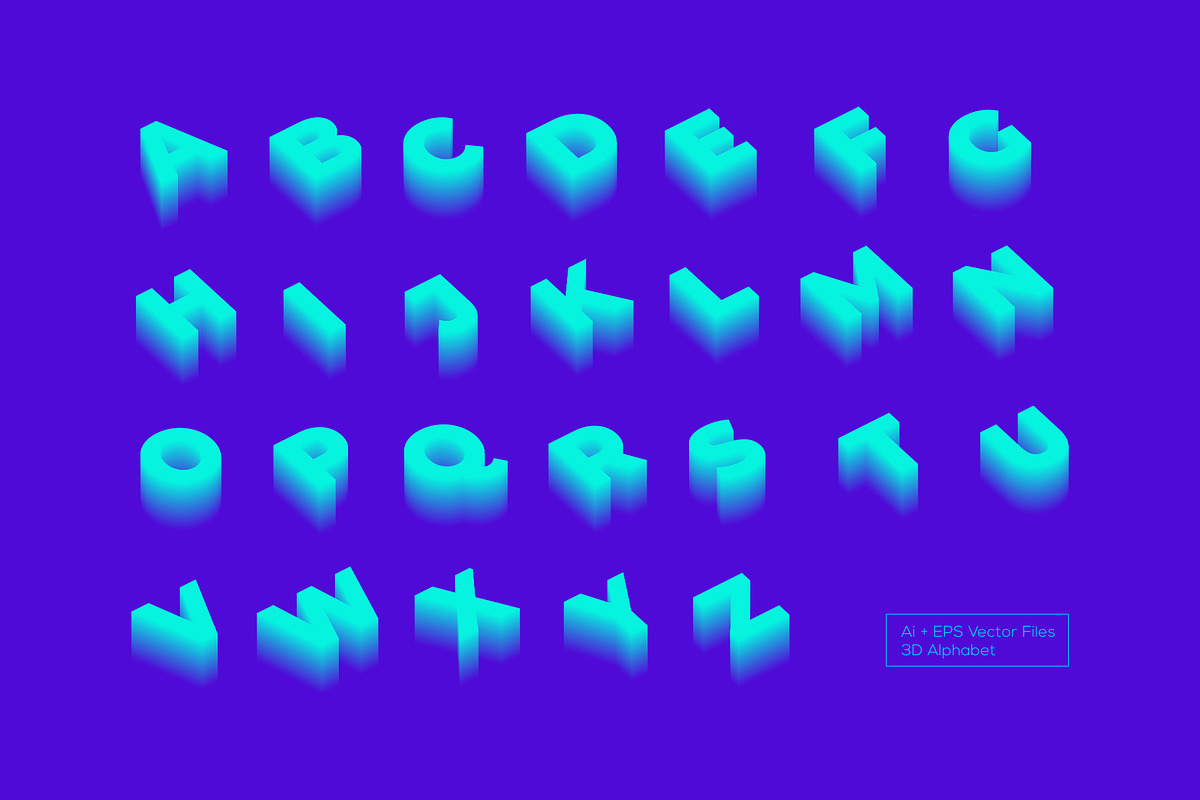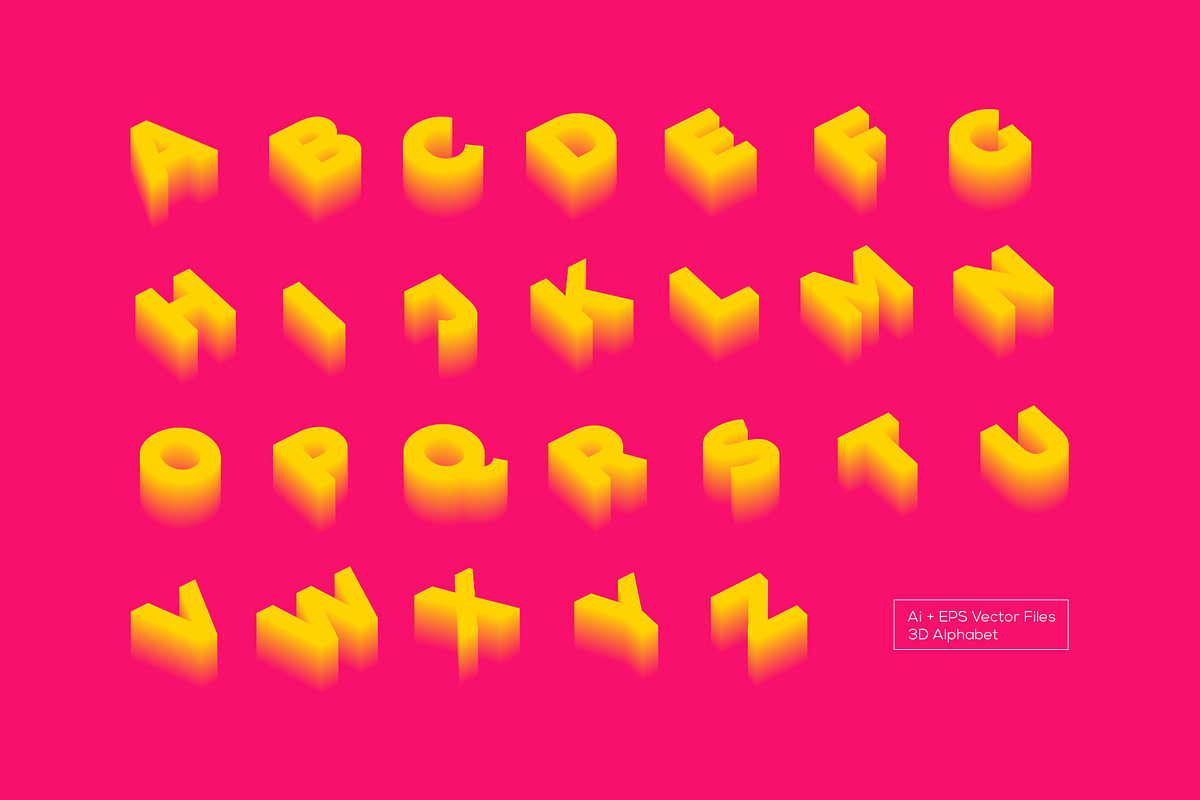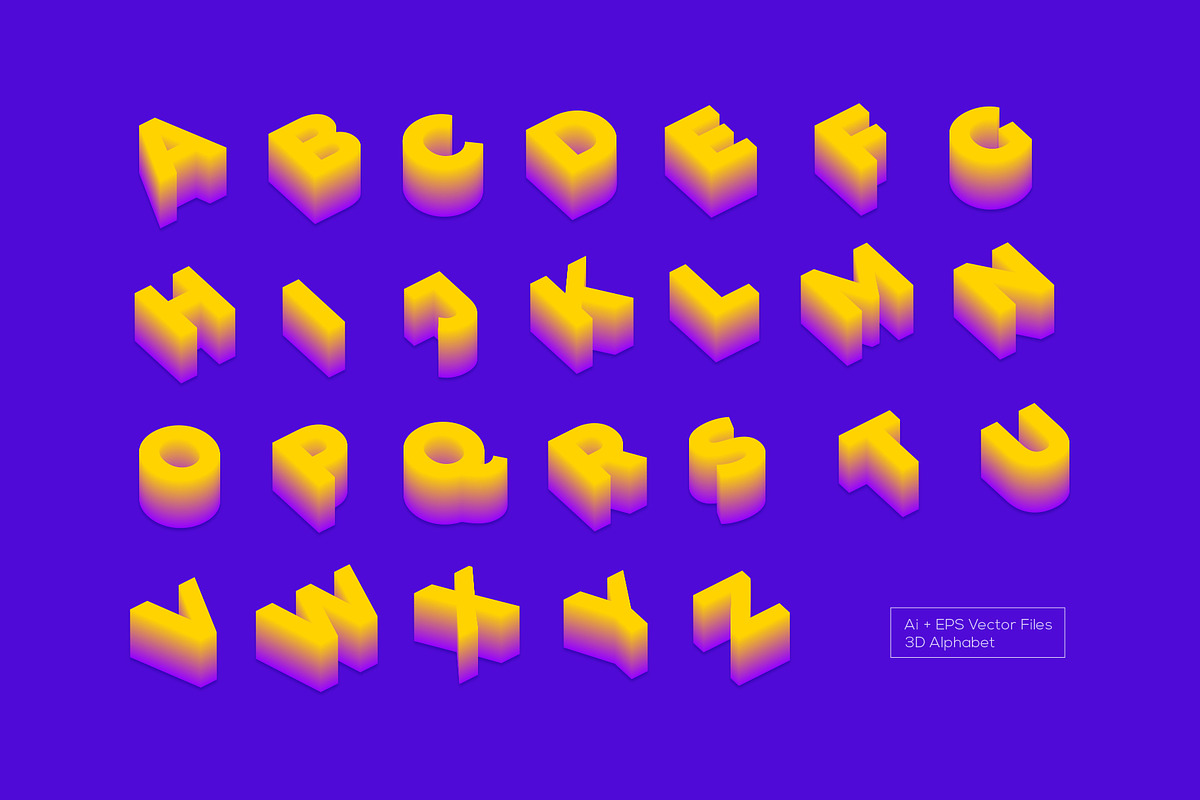
3D Colorful Alphabet Font
changeable background
3D Colorful Alphabet Font by Creativeadi fits naturally into Branding, posters, packaging, typography.